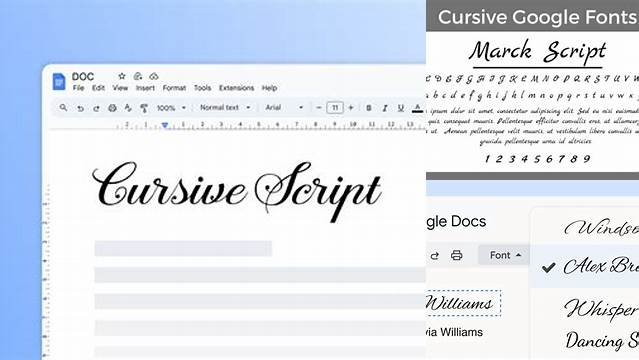
Stylish Cursive Fonts For Google Docs: Your Ultimate Guide
Hey guys! Ever wanted to add a touch of elegance or a personal flair to your Google Docs? Maybe you're working on a project, designing a special invitation, or just want to spice up your documents. Well, you're in luck! We're diving deep into the world of cool cursive fonts on Google Docs. This guide is your one-stop shop for everything you need to know, from finding those gorgeous fonts to using them like a pro. So, buckle up, grab your favorite beverage, and let's get started on this awesome font journey! We'll cover a wide range of styles, from the classic and sophisticated to the modern and playful, ensuring you find the perfect cursive font to match your needs and personality.
H2: Discovering the Best Cursive Fonts in Google Docs
Alright, first things first: how do you even find these amazing cursive fonts? Google Docs doesn't always make it super obvious, but don't worry, it's easier than you think! The key is knowing where to look and what to look for. Let's start with the basics. When you're in your Google Doc, head up to the font menu. You'll typically find it right next to the font size option. Click on it, and you'll see a dropdown menu with a bunch of font options. Now, this is where the magic happens. At the top of this dropdown, you'll usually find a section called "More fonts." Click on that. This opens up a whole new world of possibilities! In the "More fonts" window, you'll see a search bar. This is where you can type in "cursive," "handwriting," or even specific font names if you have something particular in mind. For example, if you love the look of a certain calligraphy style, try searching for that name!
Once you've typed in your search term, you'll see a list of fonts that match your criteria. But here's a pro tip: Don't just pick the first one you see! Take your time to scroll through the options and preview each font. Google Docs allows you to preview the font right there in the window, so you can see exactly what it will look like in your document. Consider the overall style of your document. Is it formal, informal, playful, or professional? The font you choose should complement that style. Also, think about readability. Some cursive fonts can be a bit tricky to read, especially in large blocks of text. You want a font that's beautiful but also easy on the eyes. Remember, the goal is to enhance your document, not make it a headache for your readers. Play around with different options, and don't be afraid to experiment! You might discover a hidden gem that becomes your new go-to font. And hey, if you're feeling overwhelmed, don't worry! We'll go over some specific font recommendations later on in this guide. For now, the most important thing is to explore and have fun with it!
H2: Top Recommendations for Cursive Fonts on Google Docs
Okay, guys, let's get down to the nitty-gritty: which cursive fonts should you actually try out? Don't worry, I've got you covered! I've put together a list of some of the best and most popular cursive fonts available in Google Docs. These are fonts that are not only beautiful but also generally easy to read, making them perfect for a variety of projects. First up, we have Dancing Script. This is a classic, widely-used cursive font that's perfect for adding a touch of elegance and personality. It's got a slightly whimsical feel, making it great for invitations, greeting cards, or even just headings in a document. It's also relatively easy to read, which is a huge plus. Next, we have Great Vibes. If you're looking for something a little more formal and sophisticated, Great Vibes is an excellent choice. It has a beautiful, flowing script that's perfect for projects that require a touch of class. It's ideal for certificates, wedding invitations, or any document where you want to convey a sense of elegance. Moving on, let's talk about Caveat. This one is a bit more modern and playful. It has a slightly less formal feel than Great Vibes, but it's still a beautiful cursive font. It's a great option for headings, quotes, or even short paragraphs where you want to add a bit of personality. It's also very readable, which is a huge plus. Another fantastic option is Pacifico. This font has a more casual, surfer-vibe feel. It's perfect for projects that need a bit of a relaxed, friendly touch. Think of it for posters, social media graphics, or even just adding a fun element to a document. It's easy to read and visually appealing. Remember, the best font for you will depend on your specific needs and the overall style of your document. Don't be afraid to try out several different options to see what works best! Experiment with these fonts and see which ones resonate with you and fit the overall aesthetic you're aiming for. Have fun with it, and let your creativity flow!
H2: Cursive Fonts for Different Occasions and Projects
Alright, let's talk about how to match your cursive font to your specific project! The key is understanding the vibe you're going for and choosing a font that complements that. For formal projects, like wedding invitations, certificates, or professional documents, you'll want to lean towards elegant and sophisticated cursive fonts. Think Great Vibes or similar styles with a classic feel. These fonts convey a sense of tradition, quality, and attention to detail. For more casual projects, like birthday invitations, greeting cards, or personal notes, you can get a bit more playful. Dancing Script or similar fonts with a whimsical touch are great options. They add a touch of personality and make your document feel friendly and approachable. If you're working on a creative project, like a scrapbook page, a poster, or a social media graphic, you can experiment with even more unique cursive fonts. Try fonts with a modern, artistic feel, such as Pacifico or similar fonts. These fonts can add a touch of originality and creativity to your work. When choosing a font for a book cover or a long-form document, readability is paramount. You'll want a cursive font that's visually appealing but also easy to read in extended text. Experiment with different fonts and sizes to find the perfect balance between style and functionality. Think about the audience for your project. If you're designing something for kids, you might want a font that's fun and engaging. If you're creating something for a professional audience, you'll want a font that's polished and sophisticated. Also consider your own personal style. Choose a font that resonates with you and reflects your personality. Your font choice should enhance your message and make your document more enjoyable for your audience. With so many font options available, you're sure to find the perfect cursive font for every project. Just remember to consider the occasion, the audience, and the overall style you're trying to achieve.
H2: Enhancing Readability with Cursive Fonts
Alright, let's address a super important point: readability. While cursive fonts are gorgeous, they can sometimes be a bit tricky to read, especially in large blocks of text. Here's how you can make sure your cursive font is readable and easy on the eyes. First, choose the right font. Not all cursive fonts are created equal. Some are more elaborate and stylized than others, which can make them harder to read. Look for fonts that are clear, clean, and have distinct letterforms. Consider the font size. Smaller font sizes can make cursive fonts even harder to decipher. Experiment with different font sizes to find the one that's most readable for your document. Generally, a larger font size is recommended for cursive fonts, especially for headings or titles. Use appropriate spacing. Tight spacing can make cursive fonts look cramped and difficult to read. Ensure that there's enough space between letters and words for easy comprehension. Google Docs offers options to adjust line spacing and paragraph spacing. Experiment with different settings to find what works best. Use cursive fonts sparingly. Don't overuse cursive fonts in your document. They're best suited for headings, titles, or short paragraphs. Overusing cursive fonts can make your document look cluttered and difficult to read. Pair cursive fonts with other fonts. Consider using a non-cursive font for the body text of your document. Pairing a cursive font with a clear, easy-to-read font can create a balanced and visually appealing design. Test your document. Print out your document or view it on different devices to make sure your chosen cursive font is readable. If you're having trouble, try adjusting the font size, spacing, or font choice. Be mindful of the audience. Consider who will be reading your document. If you're creating something for an older audience or someone who might have visual impairments, it's especially important to prioritize readability. By following these tips, you can ensure that your cursive font enhances your document without compromising readability. Remember, the goal is to create a document that's both beautiful and easy to read.
H2: Combining Cursive Fonts with Other Font Styles
Let's talk about a creative way to make your documents pop: combining cursive fonts with other font styles! This is a fantastic way to create a visually appealing and balanced design. When combining fonts, the key is to find a good balance and create a visual hierarchy that guides the reader's eye. Here's how you can do it. First, choose a complementary font. Select a font that complements your cursive font. This could be a sans-serif font (like Arial or Open Sans) or a serif font (like Times New Roman or Georgia). Experiment to find a combination that looks good together. A good rule of thumb is to choose a font that is different enough from your cursive font to provide contrast, but similar enough to create a cohesive look. Create a visual hierarchy. Use your cursive font for headings and titles, and your non-cursive font for the body text. This helps to guide the reader's eye and create a clear structure for your document. You can also use different font sizes, weights, and styles (bold, italic) to further differentiate between different levels of information. Consider the contrast. Make sure there's enough contrast between your cursive font and your non-cursive font. This will ensure that your text is easy to read. This involves choosing a font that looks good with the font that you choose. Limit the number of fonts. Don't use too many different fonts in your document. This can make your document look cluttered and unprofessional. It's generally recommended to use no more than two or three different fonts. Think about the mood. Consider the overall mood you want to create with your document. A cursive font can add a touch of elegance or personality, while a non-cursive font can provide a sense of clarity and professionalism. Choose your fonts to match the tone of your content. Experiment and have fun! Try out different font combinations to see what works best. Play around with different sizes, weights, and styles to create a unique and visually appealing design. The most important thing is to find a combination that you like and that effectively communicates your message. Here are some examples of effective font combinations: Dancing Script (heading) with Open Sans (body text), Great Vibes (heading) with Georgia (body text), and Pacifico (heading) with Lato (body text).
H2: Cursive Fonts and Branding: Creating a Unique Identity
Okay, let's talk about branding! Cursive fonts can be a powerful tool for creating a unique brand identity. They can help you convey a specific personality and create a memorable impression. When you're developing your brand, think about how a cursive font can reflect your brand's values, personality, and target audience. First, consider your brand's personality. Is your brand elegant, playful, professional, or something else? The cursive font you choose should match your brand's personality. A sophisticated brand might use a classic cursive font like Great Vibes, while a playful brand might use a more whimsical font like Dancing Script. Think about your target audience. The cursive font you choose should appeal to your target audience. If you're targeting a younger audience, you might want a font that's fun and engaging. If you're targeting a professional audience, you might want a font that's polished and sophisticated. Use your cursive font consistently. Once you've chosen a cursive font for your brand, use it consistently across all your branding materials. This will help to create a cohesive brand identity. This includes your website, social media, marketing materials, and any other materials that represent your brand. Don't overuse your cursive font. Cursive fonts are best used for headings, titles, or logos. Don't overuse your cursive font in your body text, as this can make your brand look cluttered and difficult to read. Combine your cursive font with other fonts. You can combine your cursive font with other fonts to create a more balanced and visually appealing brand. Choose a font that complements your cursive font and reinforces your brand's message. Get feedback. Ask others for feedback on your font choice. Make sure your font choice resonates with your target audience and effectively conveys your brand's message. Create a brand style guide. Develop a brand style guide that outlines the fonts, colors, and other visual elements that represent your brand. This will help ensure that your brand is consistent across all your marketing materials. Cursive fonts can be a powerful tool for creating a unique brand identity, and by carefully considering your brand's personality, target audience, and visual elements, you can create a brand that is both memorable and effective. It’s all about creating a visual experience that speaks to your audience!
H2: Tips for Designing with Cursive Fonts in Google Docs
Alright, let's put it all together! Here are some handy tips to help you design with cursive fonts effectively in Google Docs. First, choose the right font. Start by selecting a cursive font that complements your project and aligns with your brand. Consider its readability, style, and the overall message you're trying to convey. Ensure the font suits the context of your document and that it conveys the desired tone. Set a clear visual hierarchy. Use the cursive font for headings and titles to draw attention. This helps guide the reader's eye and establishes a clear structure for your document. Make the titles large, but don’t overdo it! Pair with a readable font. Combine your cursive font with a clean, easy-to-read non-cursive font for body text. This contrast improves readability and makes the document more appealing. Choose a sans-serif or serif font that complements your cursive font. Adjust font size and spacing. Experiment with font sizes and spacing to enhance readability. Larger font sizes often work well for cursive fonts, especially in headings. Adjust line spacing and paragraph spacing as needed for clarity. Make sure the letters are easy to distinguish from each other. Limit cursive font usage. Don't overuse the cursive font. Use it sparingly for headings, titles, or short text elements. Too much cursive can make the document look cluttered and difficult to read. A well-placed cursive font will make your work stand out. Consider contrast and color. Ensure good contrast between the font and the background. Choose colors that complement the font and make the text stand out. Test your color scheme to make sure it's visible and easy to read. Use light fonts against dark backgrounds. Test on different devices. Preview your document on various devices to ensure the font renders correctly. This is especially important for mobile devices. Be sure to use a tool that tests different screen sizes. Maintain consistency. Use the cursive font consistently throughout your document or branding materials. This creates a cohesive look and reinforces your message. Make sure every page is consistent. Get feedback and revise. Always get feedback from others to ensure readability and design effectiveness. Use the feedback to refine your design and create a polished final product. Be open to suggestions and make adjustments as needed. Have fun and experiment. Don’t be afraid to try different combinations. By following these tips, you can create visually appealing and easy-to-read documents.